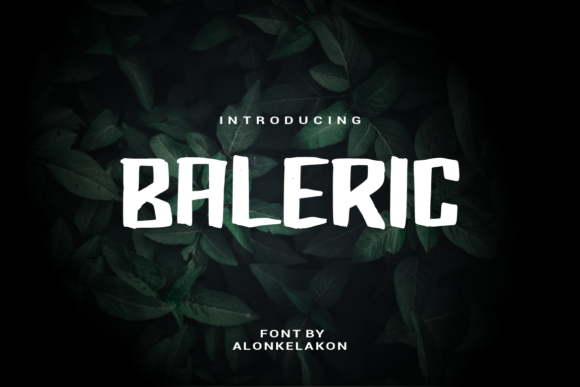
Introduction to Baleric Font
Baleric is a cool, casual and paint brushed display font.
Due to its natural and simple style, this font will fit various informal design ideas .